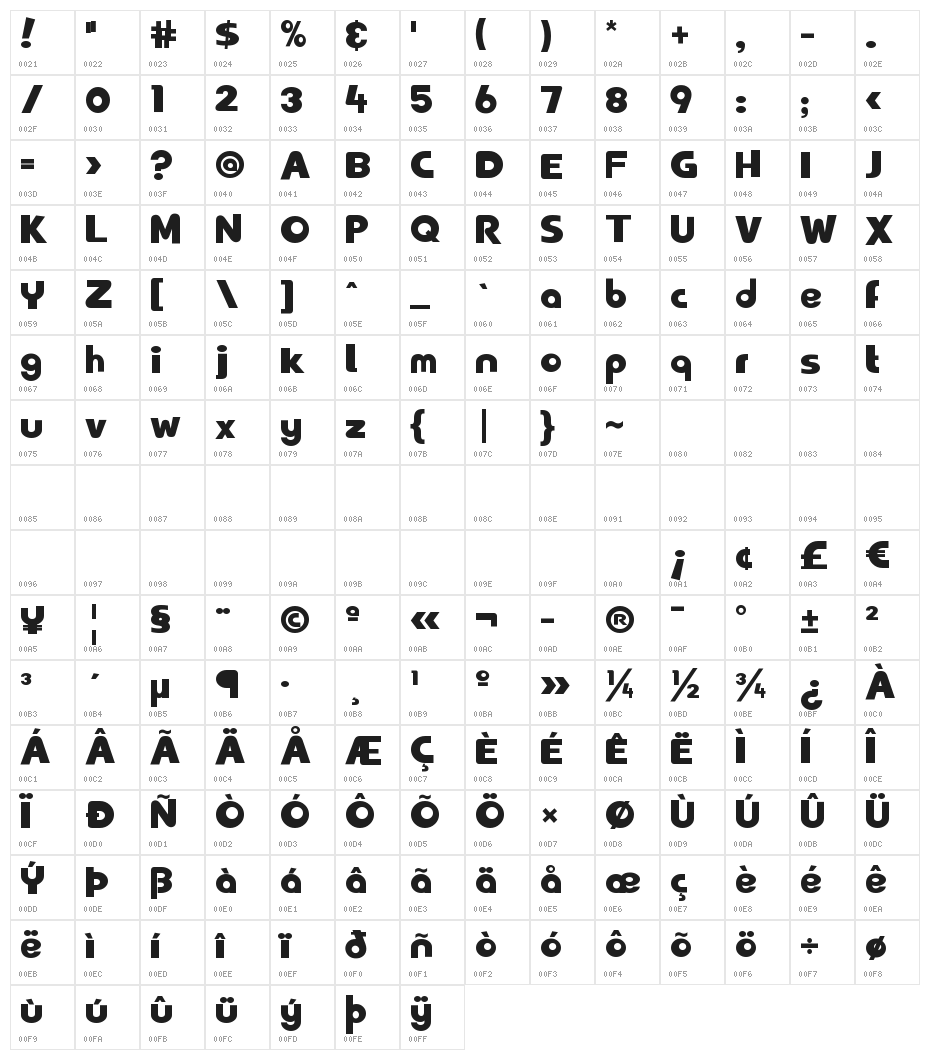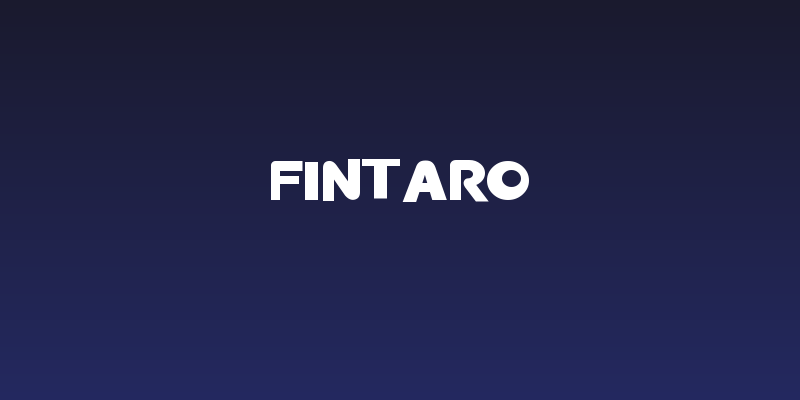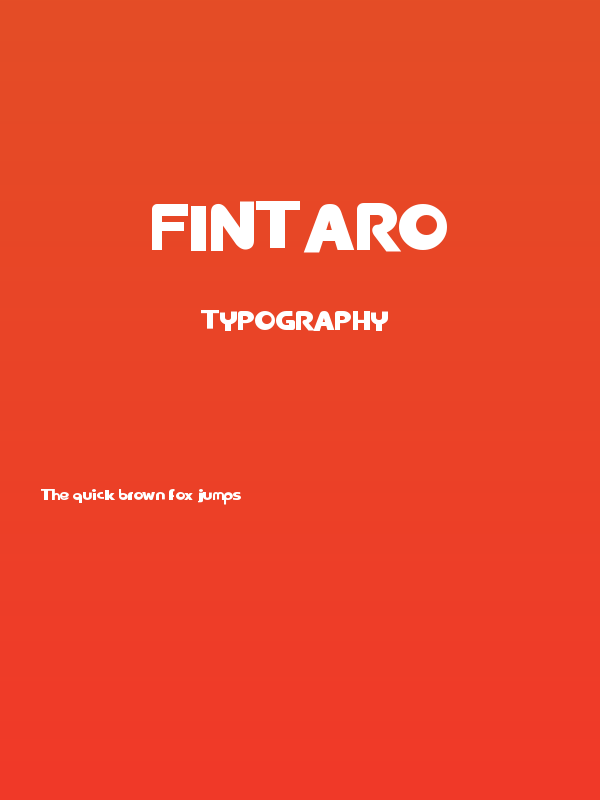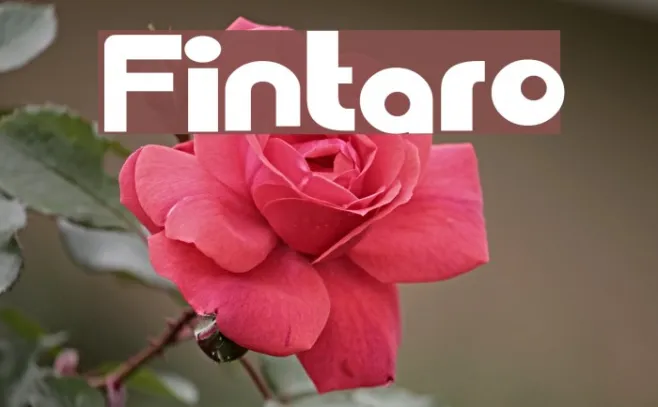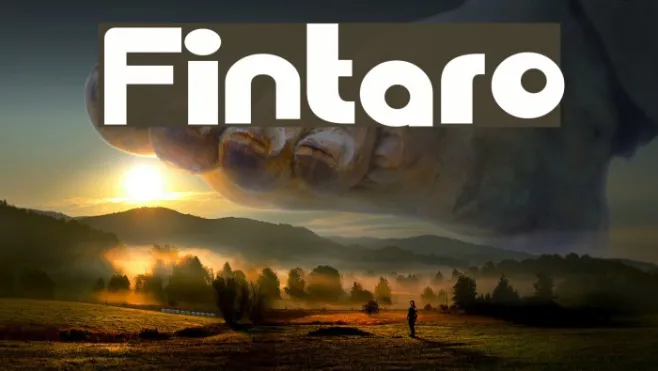
Fintaro Font
Fintaro Description
This font features bold, rounded characters with a modern and playful aesthetic. The uppercase letters are robust and slightly condensed, giving them a strong presence. The lowercase letters maintain the same rounded style, offering a friendly and approachable look. The numerals are consistent with the overall design, ensuring readability and uniformity. Special characters are well-integrated, maintaining the font's cohesive appearance. The overall style is suitable for projects that require a bold and engaging typeface.
| Proposed Projects | Ideal for branding, advertising, posters, and packaging design where a bold and friendly typeface is needed. |